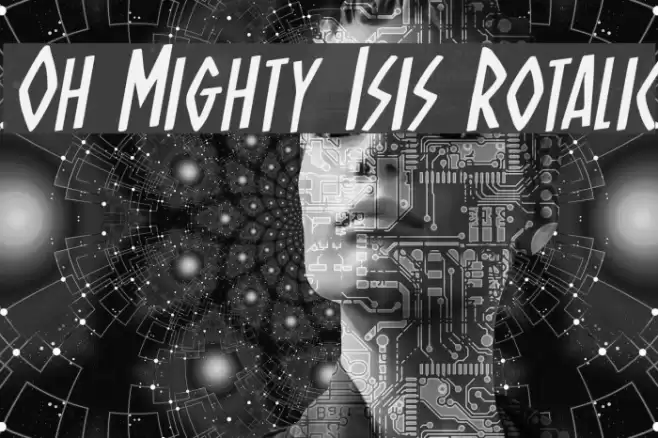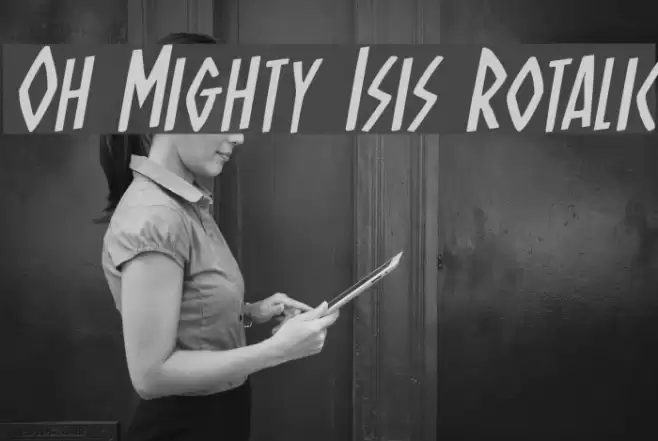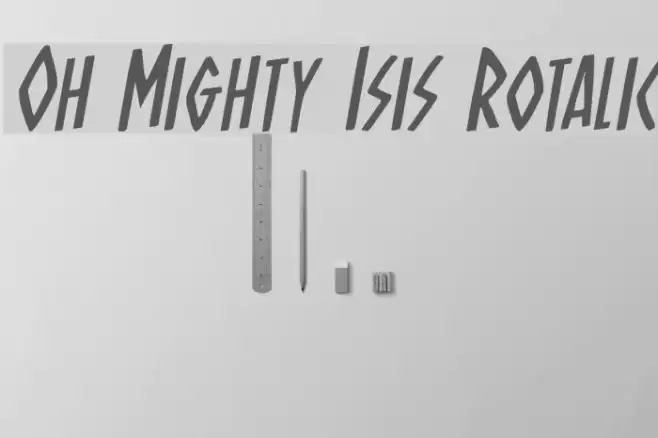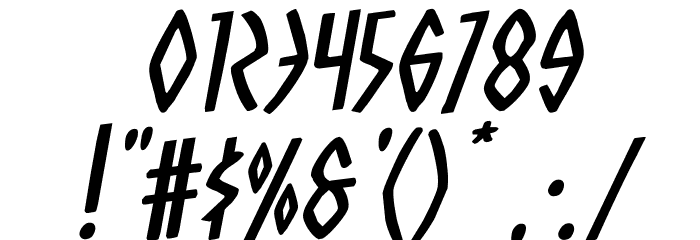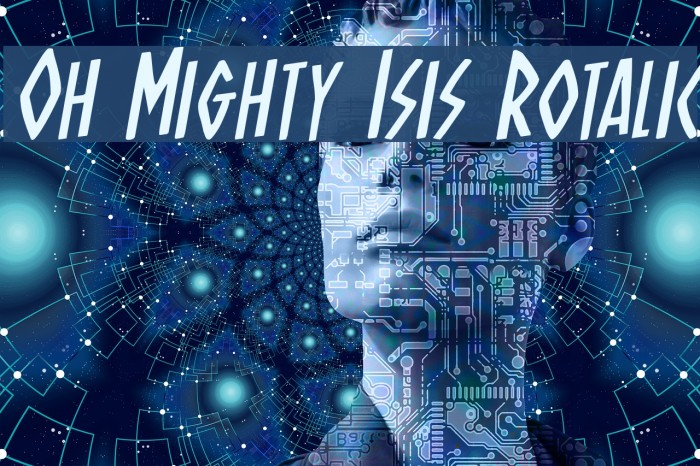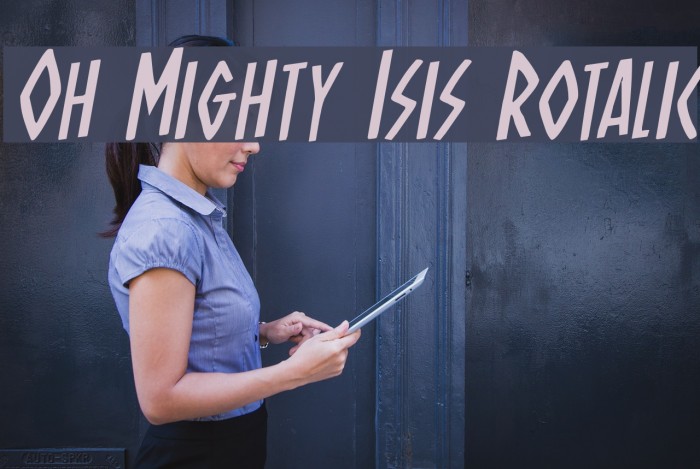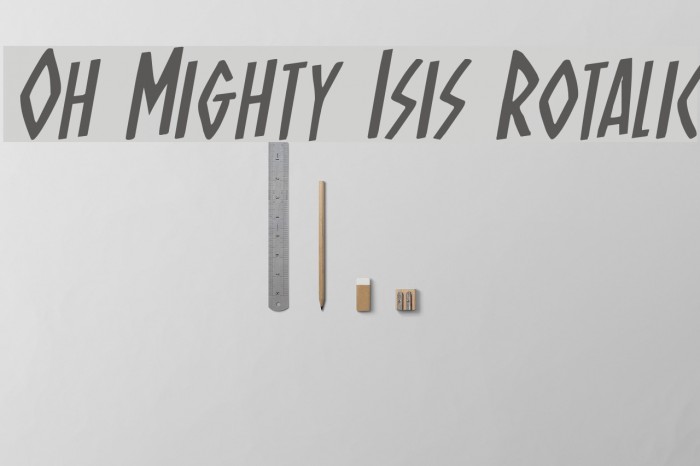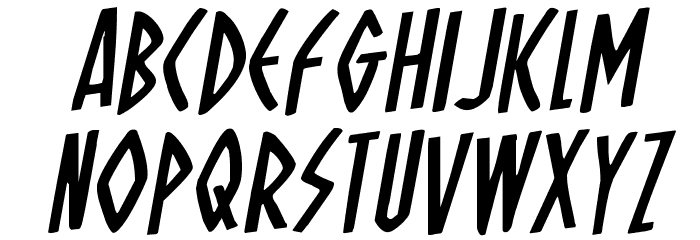
Oh Mighty Isis Rotalic Font
Oh Mighty Isis Rotalic Description
This font features a dynamic and energetic style with a distinct slant, giving it a sense of motion and urgency. The characters are bold and angular, with sharp edges and a slightly condensed form. The uppercase and lowercase letters maintain a consistent style, with the uppercase being more prominent and commanding. Numbers and special characters are designed to match the overall aesthetic, ensuring a cohesive look. The font's unique style makes it suitable for eye-catching designs that require a strong visual impact.
A bold, angular font with a dynamic slant and sharp edges from Uncategorized fonts.
- Proposed Projects: Ideal for posters, logos, branding, and any design that needs a bold, energetic look.
- Character Spacing: Tight